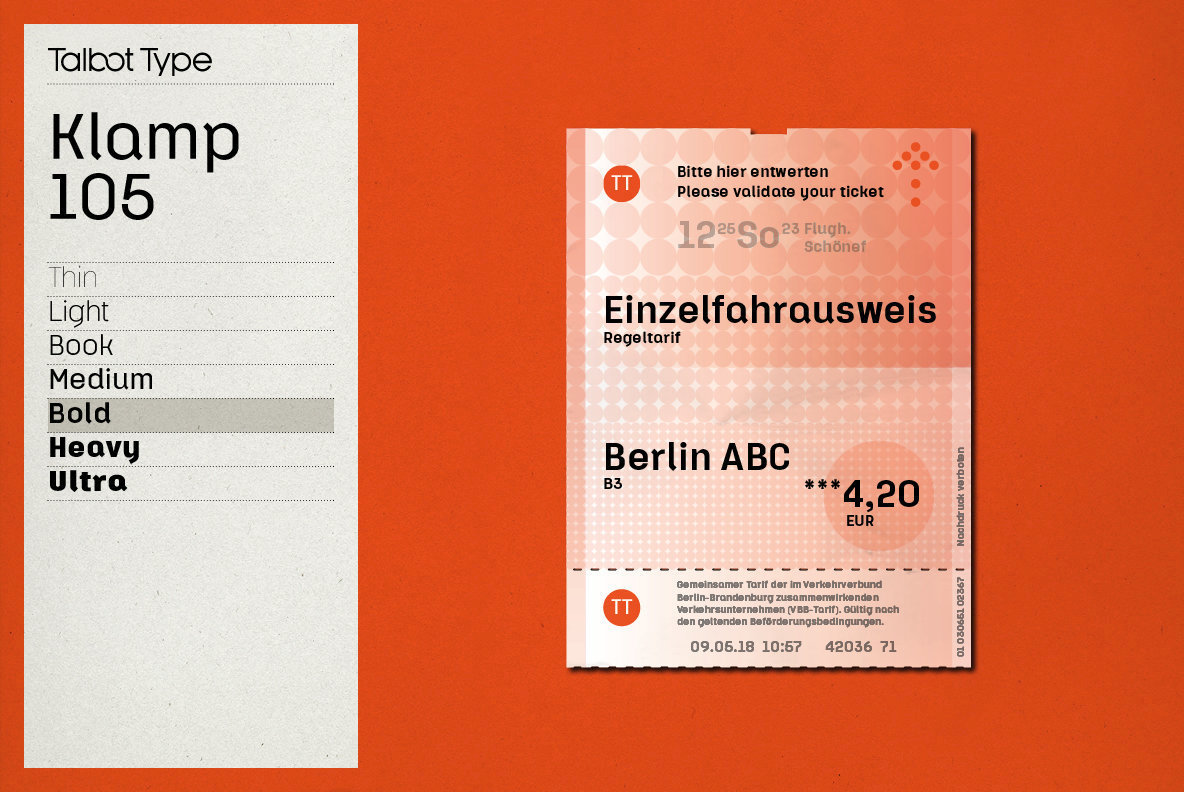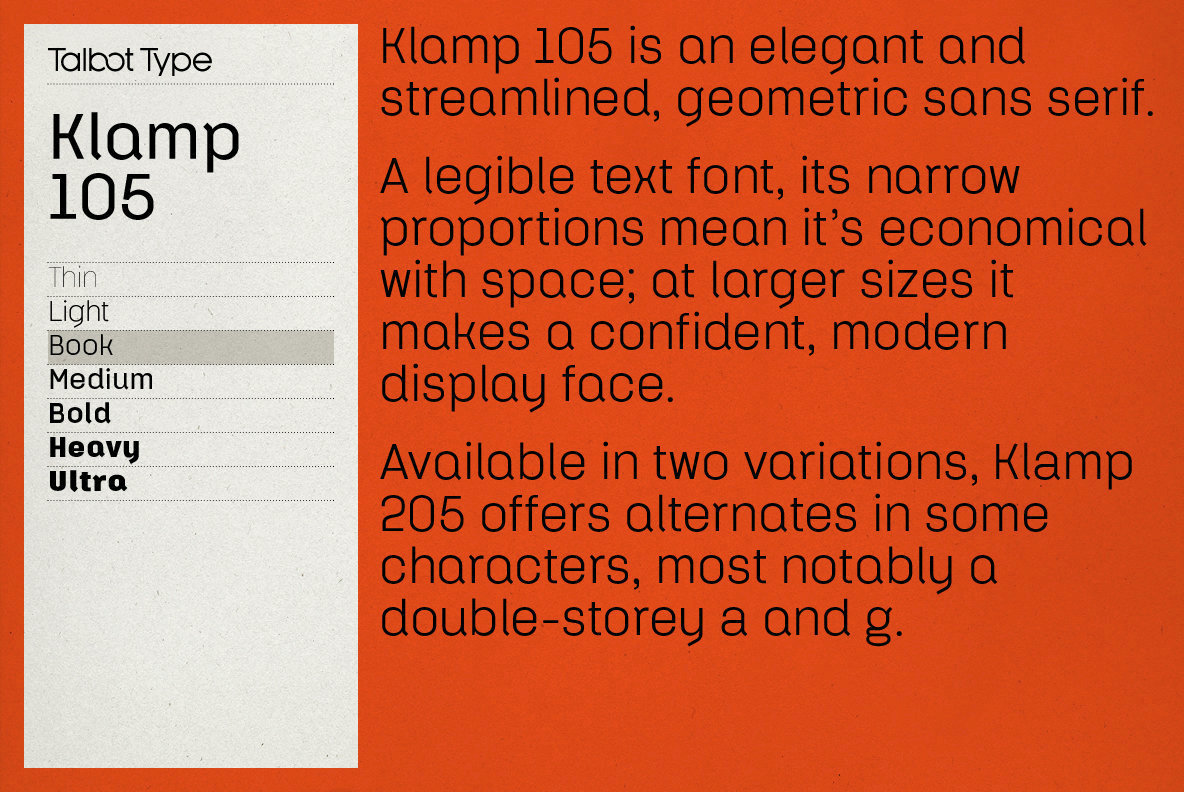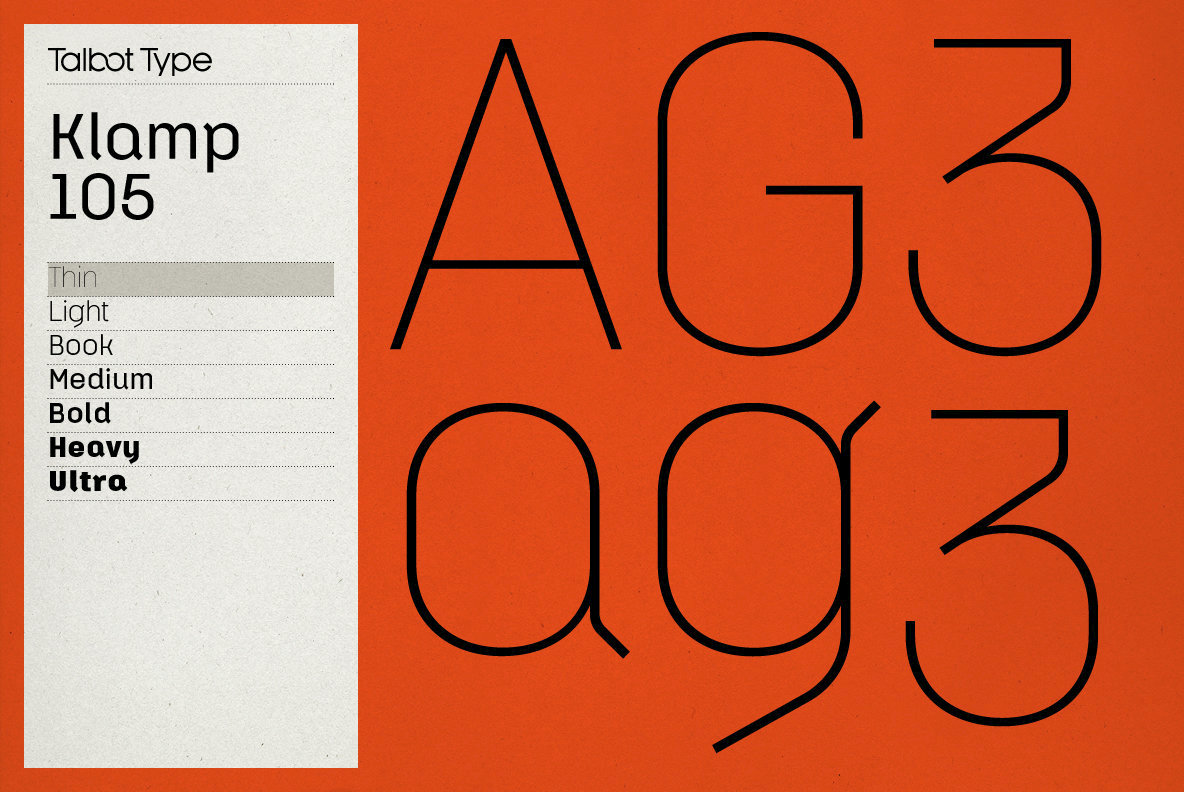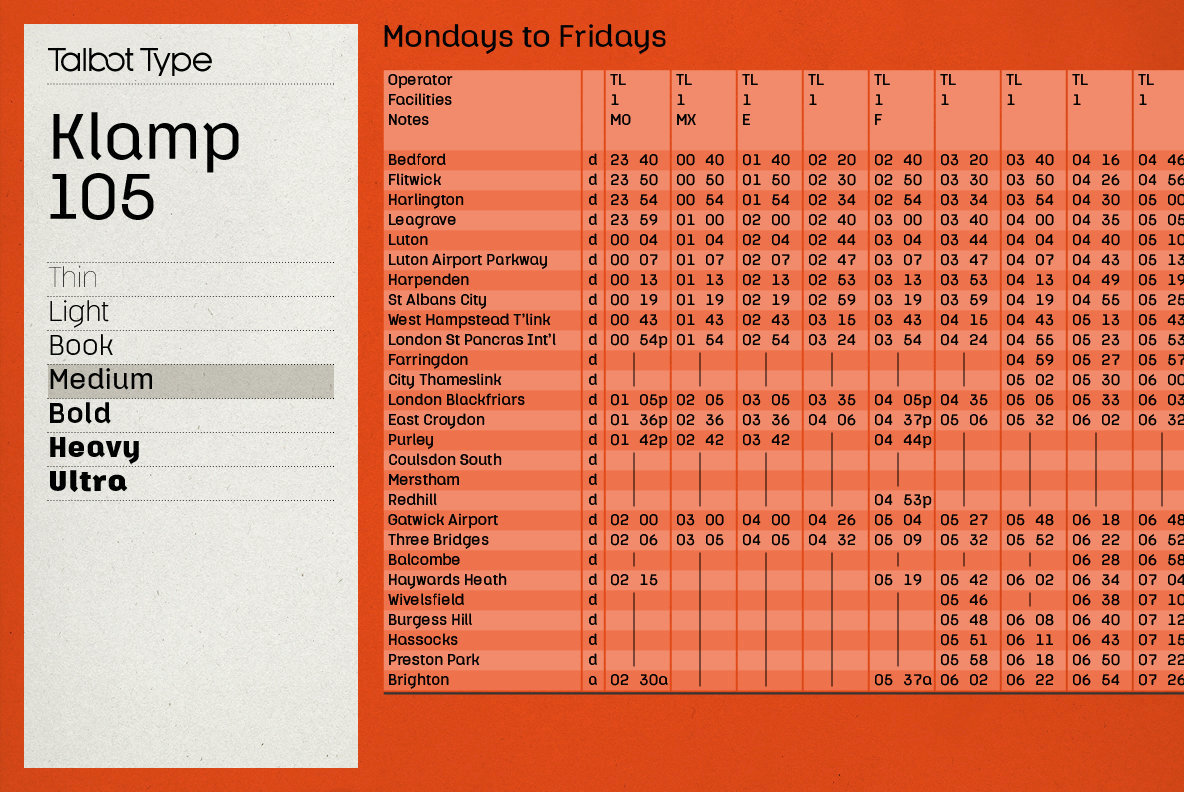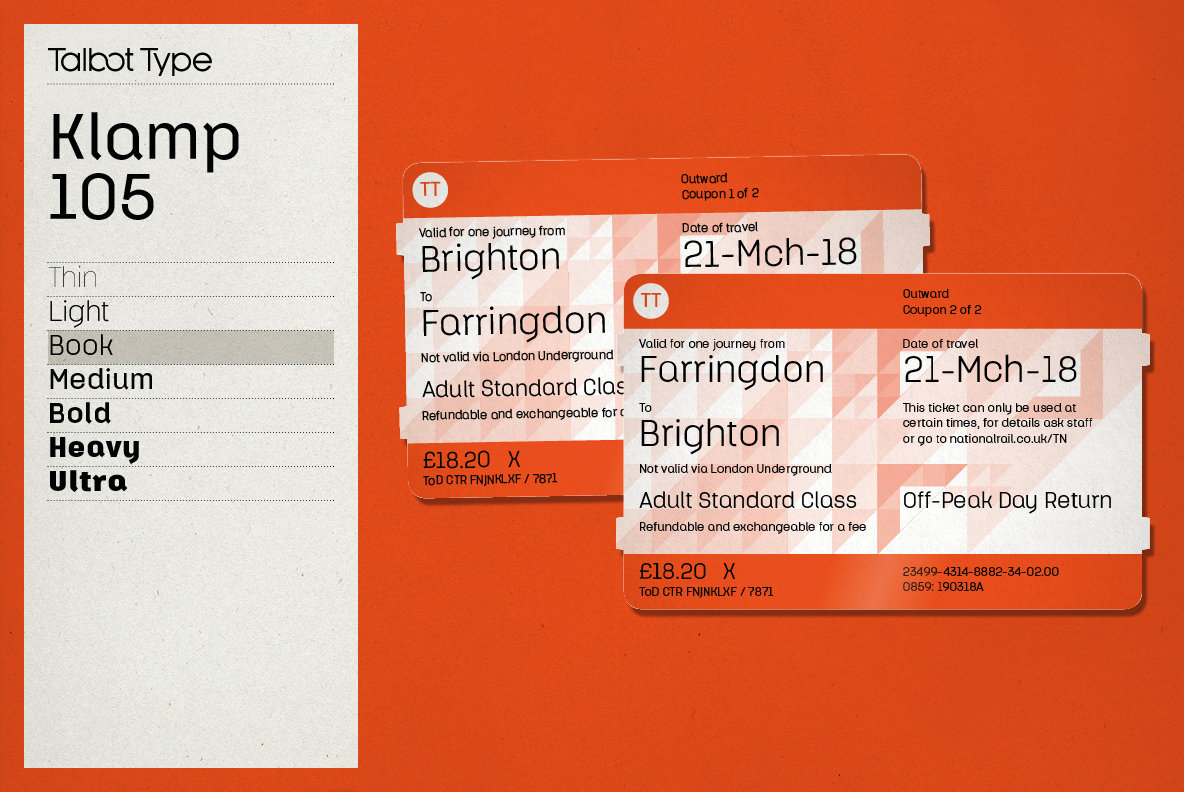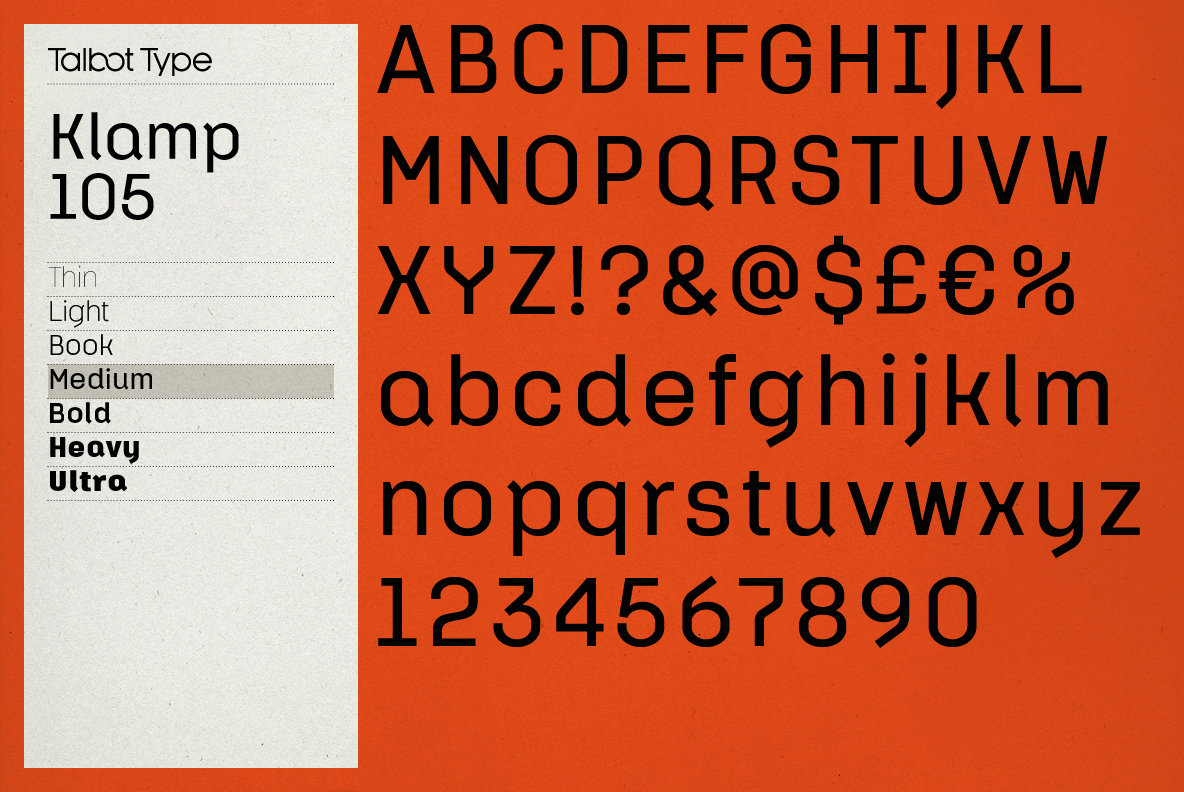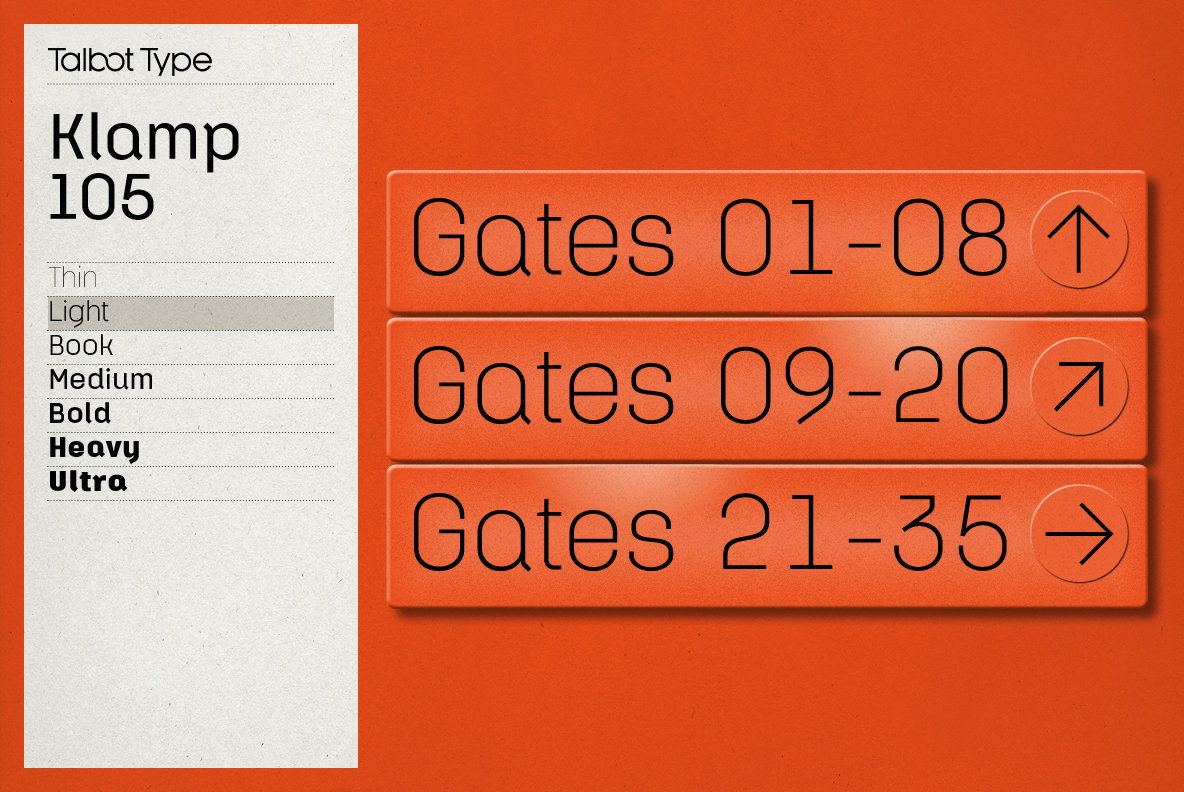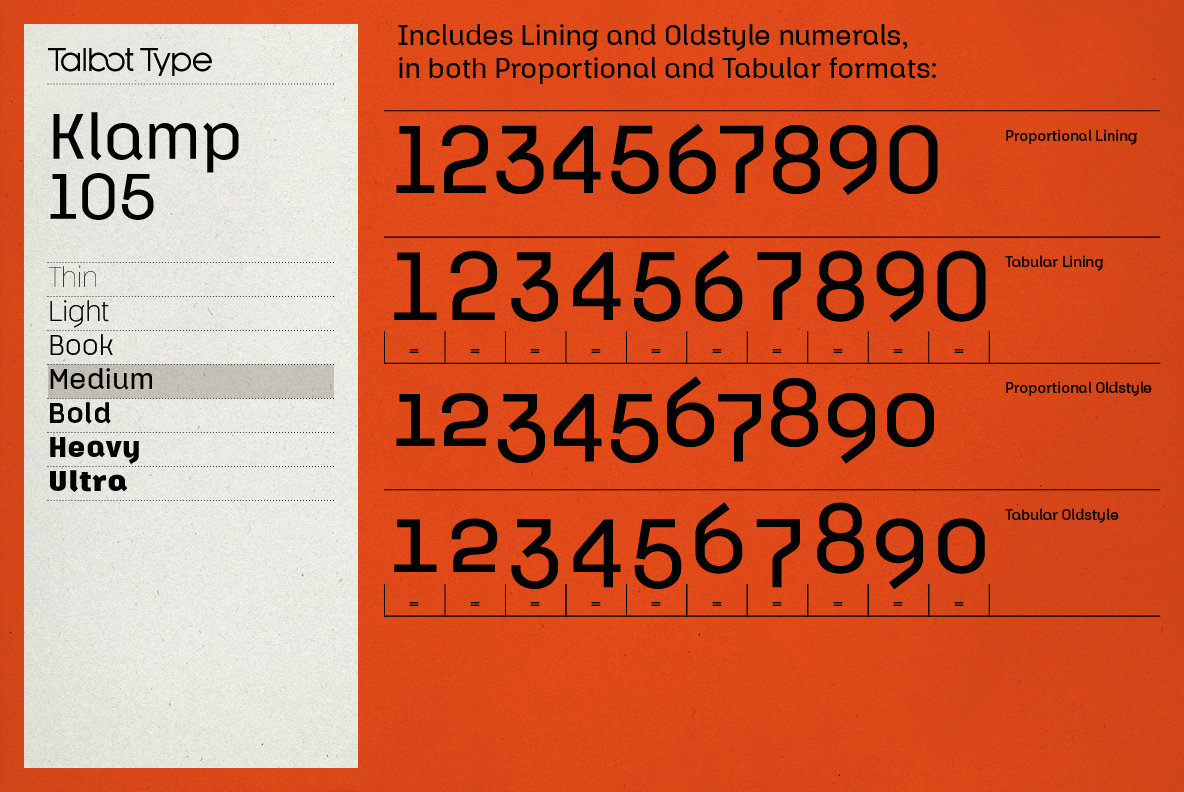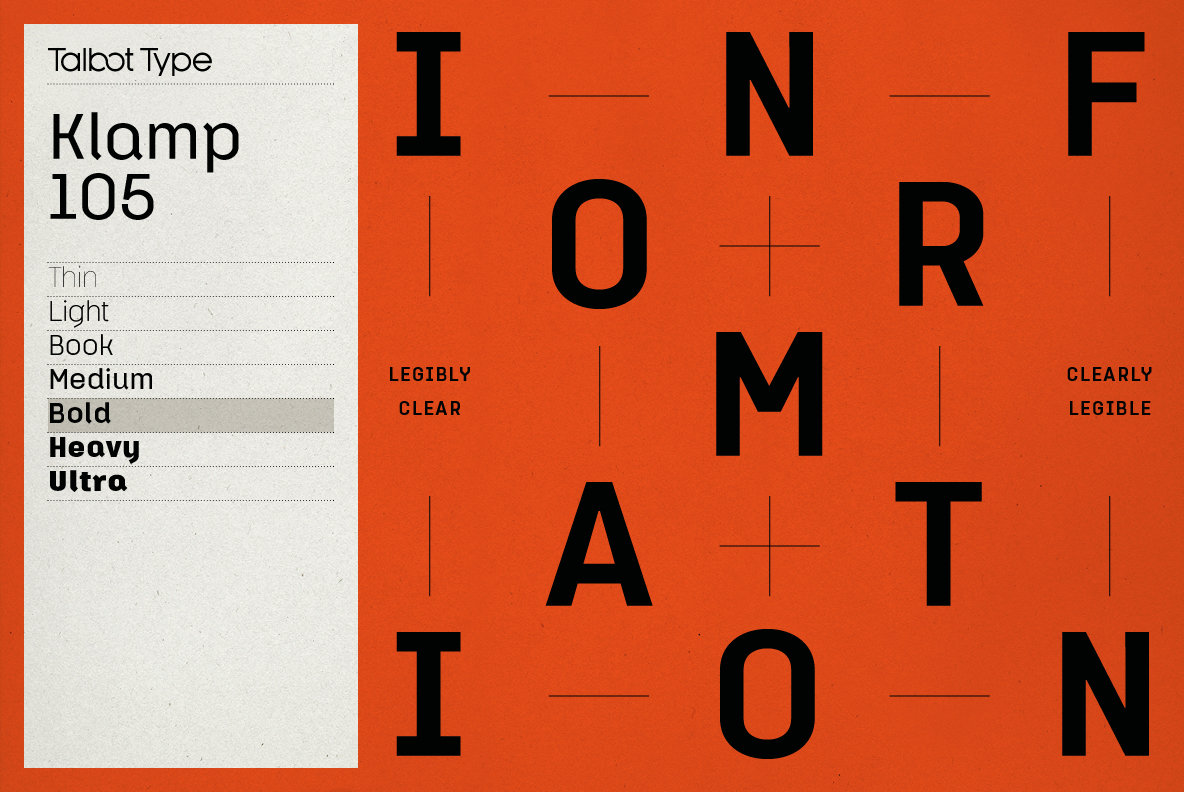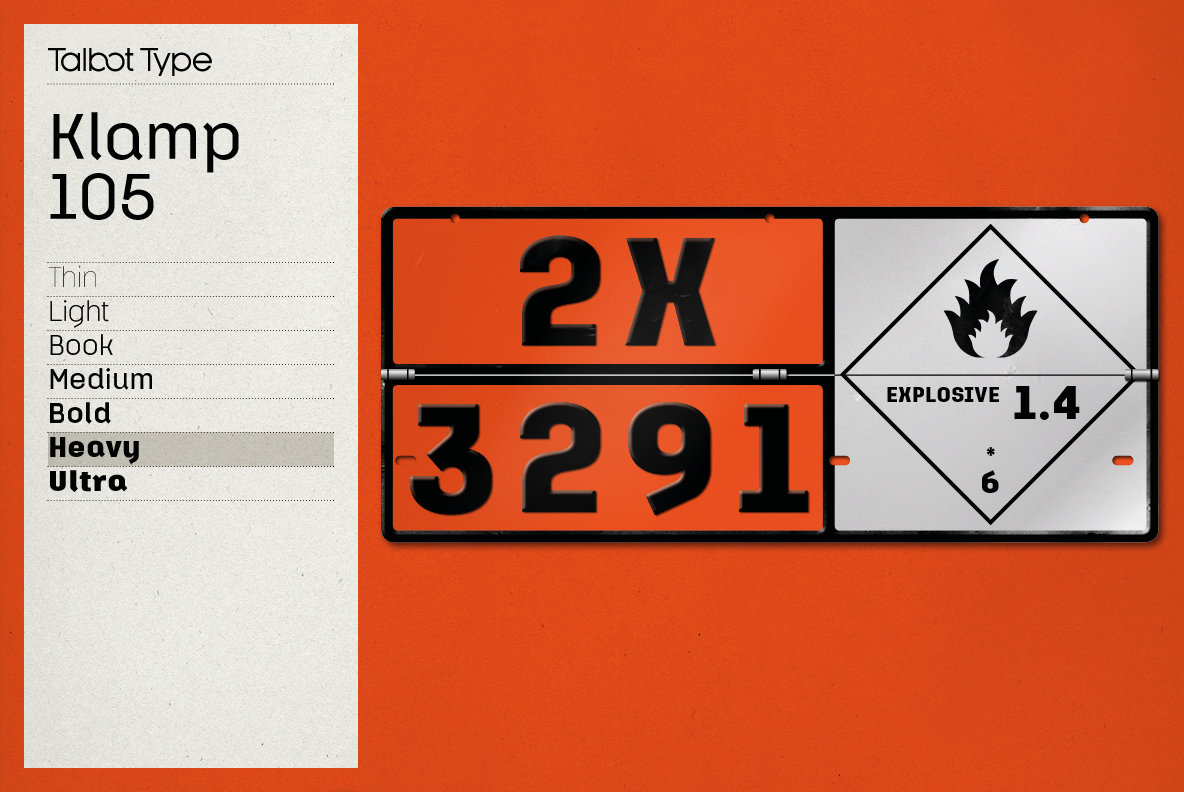
Klamp 105 Font
Talbot Type Klamp 105 is an elegant and streamlined, geometric sans-serif. A legible text font, its narrow proportions mean it’s economical with space; while at larger sizes it makes a confident, modern display face.
Klamp 105 is available in a comprehensive family of seven weights, featuring an extended character set to include old style numerals, as well as accented characters for Central European languages. It is also available with some character variations as Klamp 205, most notably featuring a traditional, double-storey lower case a and g.
Adrian Talbot established Talbot Type in 2012. His typefaces have been adopted widely, notable clients include the BBC, The British National Health Service and the Victorian State Government in Australia.Talbot Type fonts aspire to be timeless designs, valid now and in the future. They are inspired by...